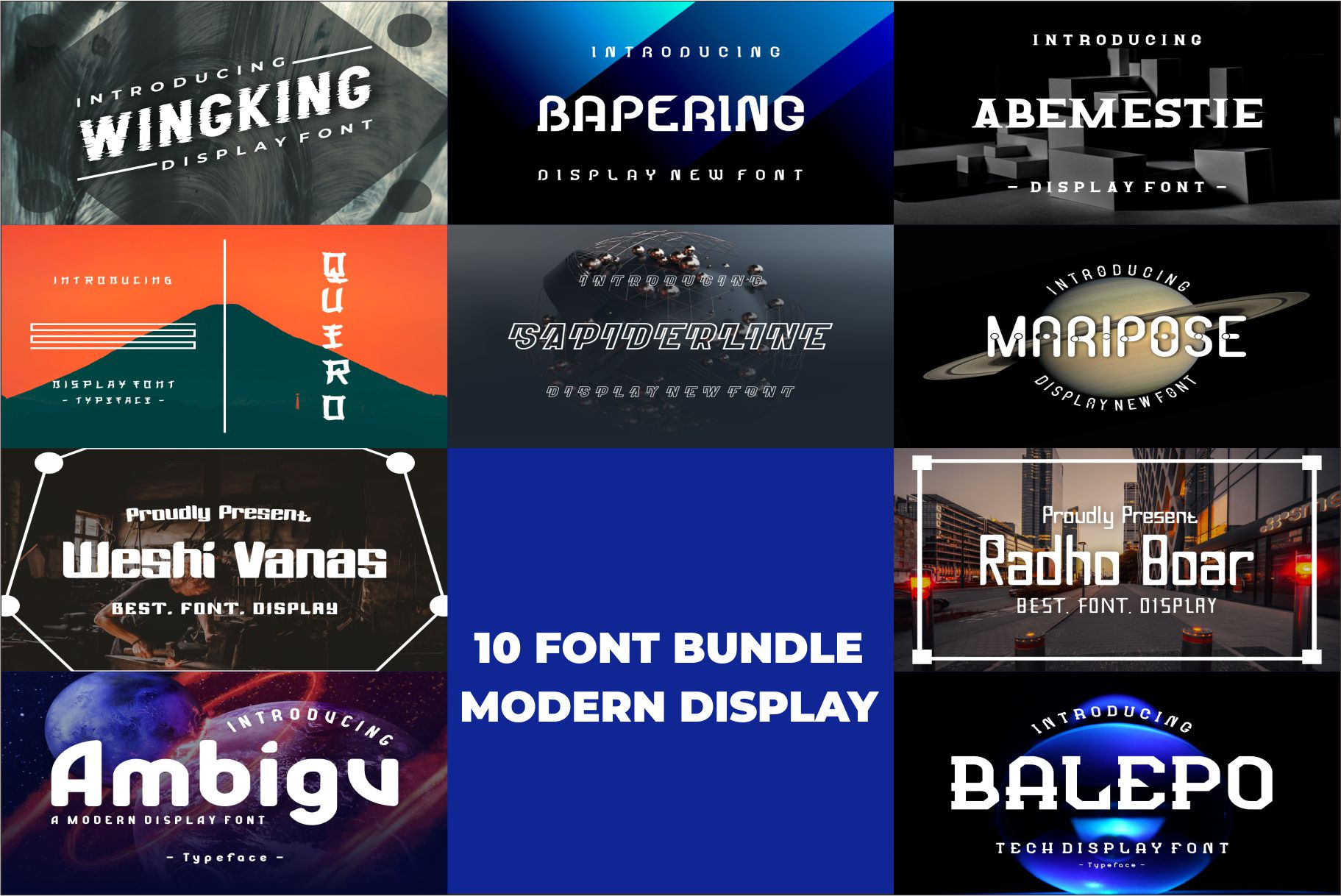
10 FONT BUNDLE MODERN DISPLAY
Introducing our new product 10 FONT BUNDLE MODERN DISPLAY
10 FONT BUNDLE MODERN DISPLAY The font is suitable for any branding project like logo, t-shirt printing, esport, and many more. outstanding in a wide range of contexts.